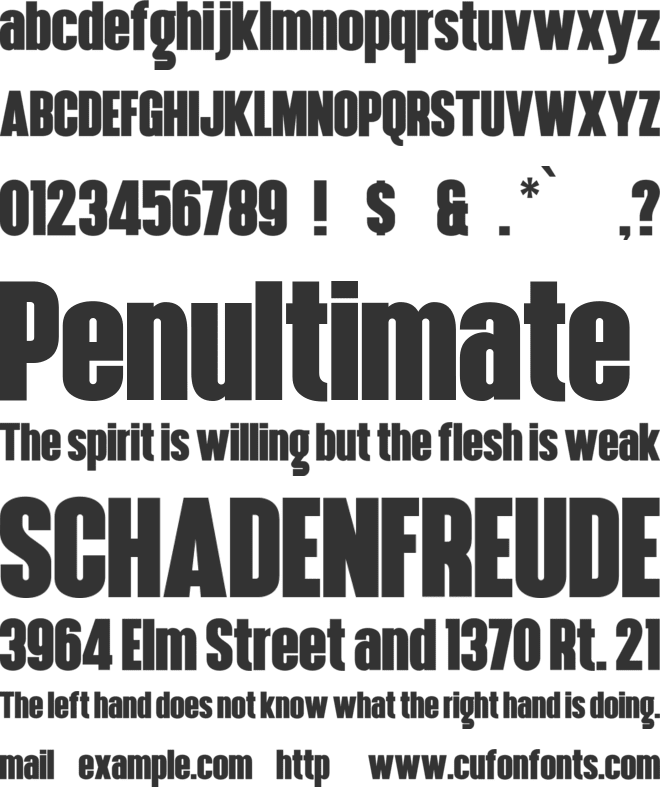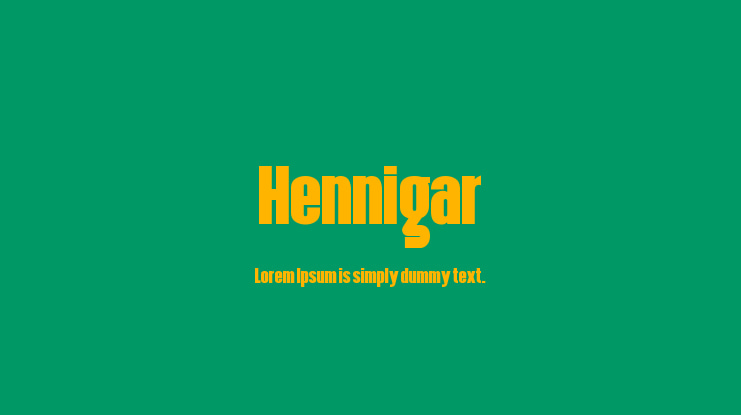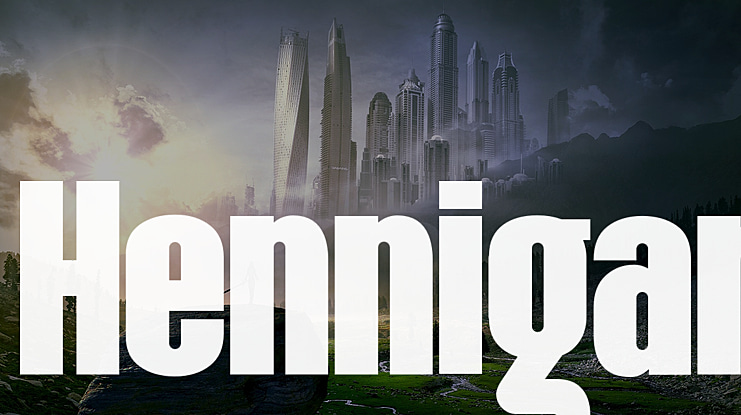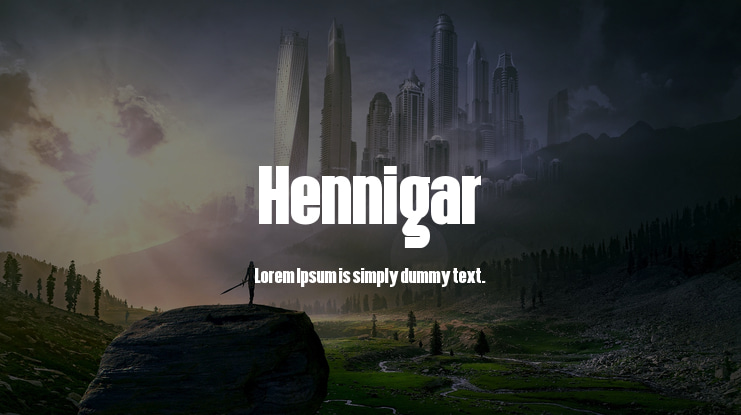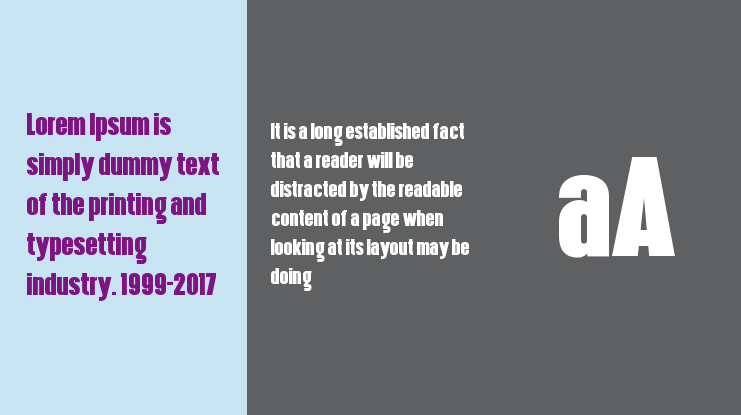
by Sharkshock
Hennigar is a Neo Grotesque sans designed for display text and headlines. While similar to Impact and Amsterdam at first sight many of the rounded letters are based on the appearance of the letter O with very little variation in width. Because of it's condensed nature the apertures are narrow
with extenders that dip well below the base line. Similarly many of the lowercase characters are based on the lowercase o. Terminals and tails always point east/west giving the entire alphabet a very uniform appearance. Basic latin, extended latin, diacritics, punctuation, math symbols, science
symbols,Greek, Cyrillic, ligatures, fractions, alternates, and kerning are included in the full version. Kerning support for Macedonian and Serbian is included via alternate substitutions along with proper italics for Russian. Demo version will feature basic latin, some accents, and punctuation.